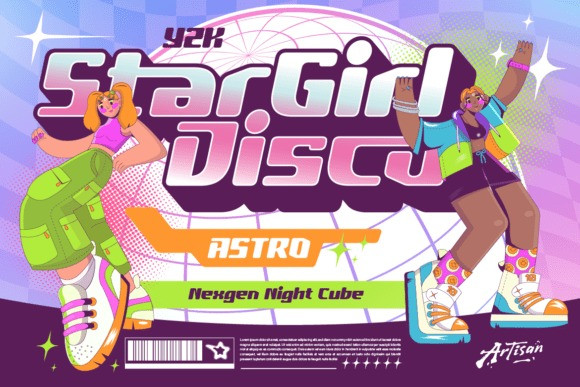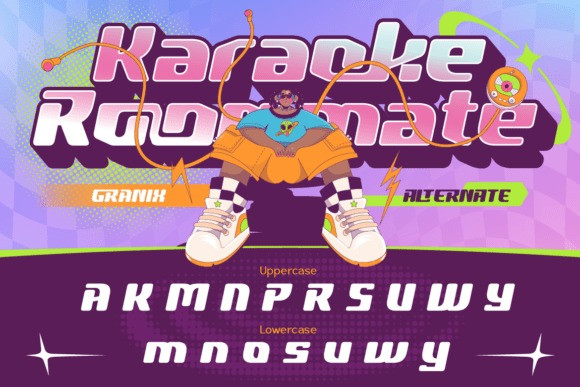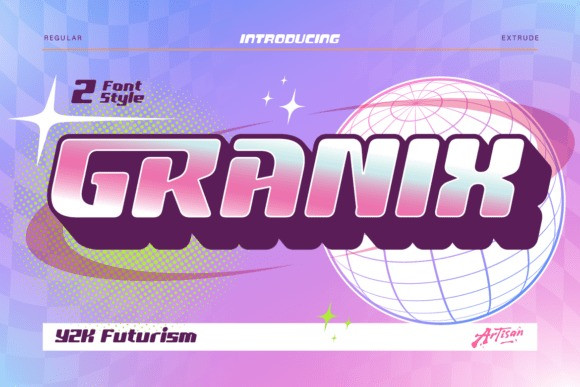
Granix Font
Granix Font a playful and eye-catching display font inspired by retro-future aesthetics, street culture, and early 2000s digital vibes. Designed to stand out, Granix blends chunky letterforms, smooth curves, and vibrant personality into one powerful typeface.With its unique bubble-tech style and dynamic shapes, this font instantly brings energy and nostalgia to your designs—perfect for creatives who want something loud, fun, and unforgettable.